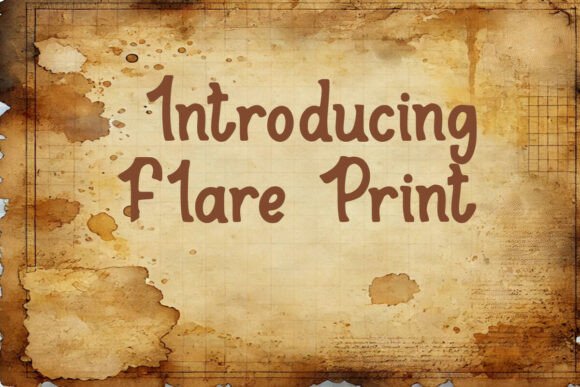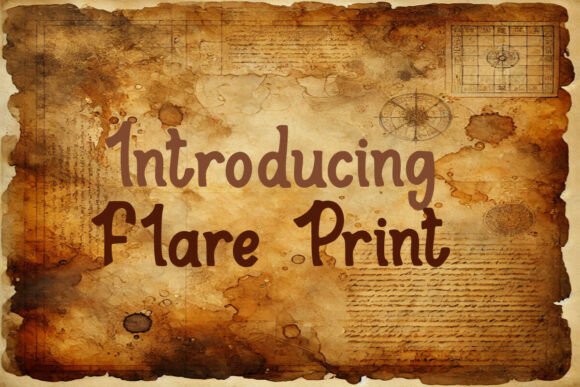
Unleash Your Creativity with the Versatile Flare Print Font
In the world of design, a font can make all the difference. It can elevate your project from ordinary to extraordinary, adding a touch of personality and style that sets it apart from the rest. If you’re a designer, crafter, or DIY enthusiast looking for a font that can help you unleash your creativity, look no further than the Flare Print font. Expertly crafted for use in a diversity of ventures, this font shines in any context, adding a unique touch to magazine layouts, lending a chic sophistication to branding efforts, or creating a striking impact on your shirt and sticker designs.
A Font for Every Project
One of the things that sets the Flare Print font apart is its versatility. Whether you’re working on a magazine layout, a branding project, or a DIY craft, this font is the perfect choice. Its unique and stylish design makes it suitable for a wide range of applications, from elegant and sophisticated to bold and playful. With the Flare Print font, you can add a touch of glamour to your designs, making them stand out from the crowd.
Elevate Your Cricut Projects
If you’re a Cricut enthusiast, you’ll love the Flare Print font. This font is perfect for cutting machines, and can be used to create custom vinyl decals, iron-on designs, and more. With the Flare Print font, you can transform your Cricut projects into memorable keepsakes that will be treasured for years to come. Whether you’re making custom signs, decorations, or gifts, this font is sure to impress.
Perfect for Greeting Cards
The Flare Print font is also a great choice for greeting card designers. With its elegant and sophisticated design, this font adds a touch of class to any card. Whether you’re making custom birthday cards, wedding invitations, or holiday greetings, the Flare Print font is the perfect choice. Its unique and stylish design will make your cards stand out from the rest, and leave a lasting impression on the recipient.
Make a Bold Statement on Social Media
In today’s digital age, social media is an essential part of any designer’s toolkit. With the Flare Print font, you can make a bold statement on social media, adding a touch of style and personality to your posts. Whether you’re creating custom graphics, quotes, or promotions, this font is sure to grab attention and leave a lasting impression.
Dynamic SVG Files
The Flare Print font is also perfect for use with SVG files. Its unique and stylish design makes it a great choice for cutting machines and graphic design software. With the Flare Print font, you can create custom graphics, logos, and icons that will add a touch of style and sophistication to any project.
Key Features of the Flare Print Font
- Versatile design: Suitable for a wide range of applications, from elegant and sophisticated to bold and playful.
- Unique and stylish: Adds a touch of glamour to any design, making it stand out from the crowd.
- Perfect for Cricut projects: Great for cutting machines, and can be used to create custom vinyl decals, iron-on designs, and more.
- Elegant and sophisticated: Adds a touch of class to greeting cards, making them perfect for special occasions.
- Dynamic and bold: Makes a bold statement on social media, adding a touch of style and personality to posts.
- Compatible with SVG files: Perfect for use with cutting machines and graphic design software.
In conclusion, the Flare Print font is a versatile and stylish font that is perfect for designers, crafters, and DIY enthusiasts. Its unique and elegant design makes it suitable for a wide range of applications, from magazine layouts to social media posts. With its compatibility with Cricut machines, SVG files, and graphic design software, this font is sure to become a go-to choice for anyone looking to add a touch of style and sophistication to their projects. So why wait? Unleash your creativity with the Flare Print font today, and take your designs to the next level!